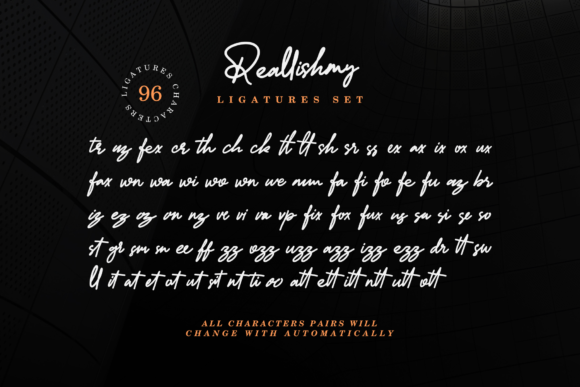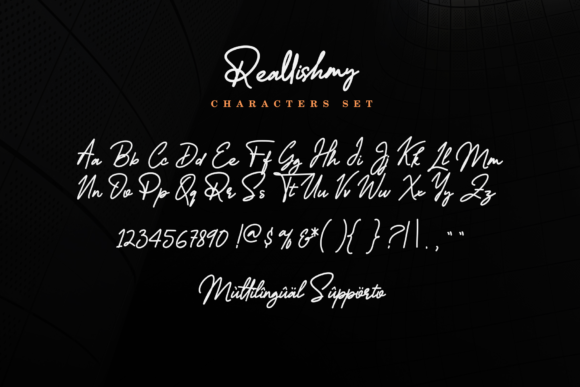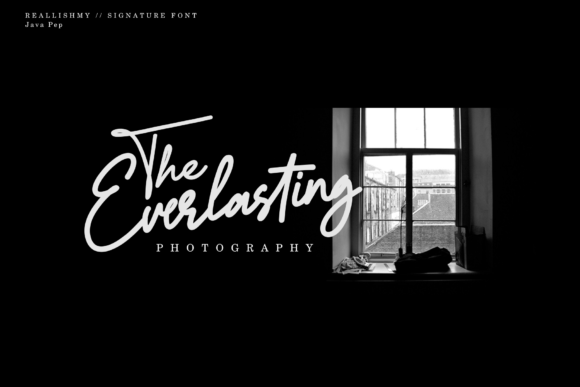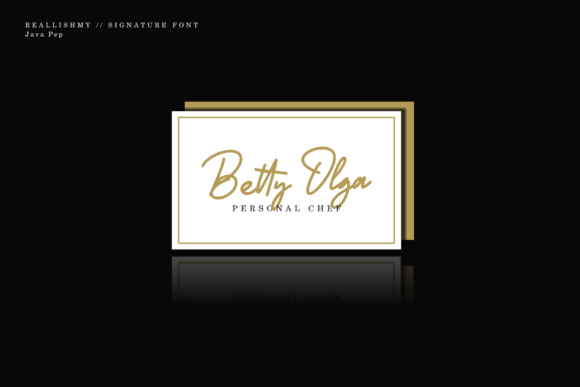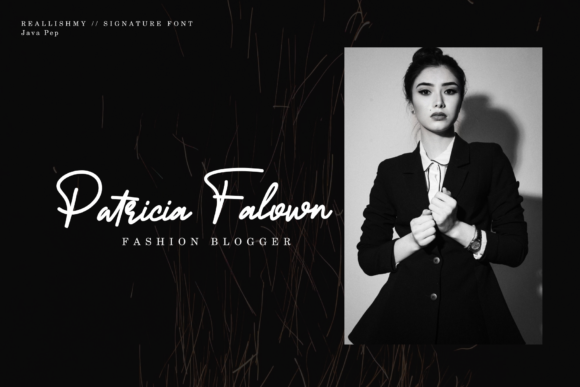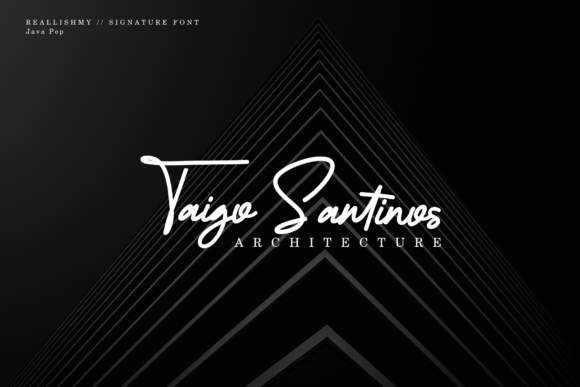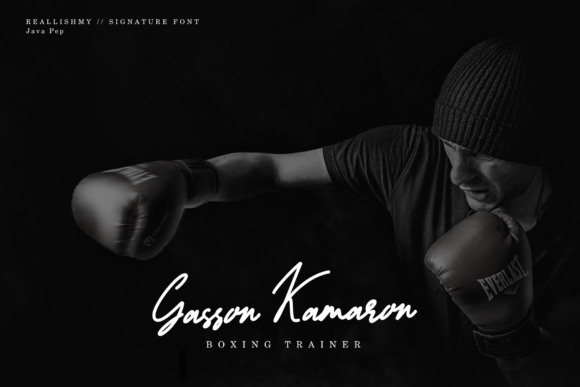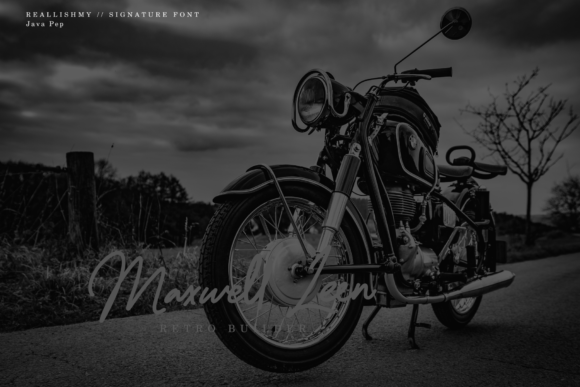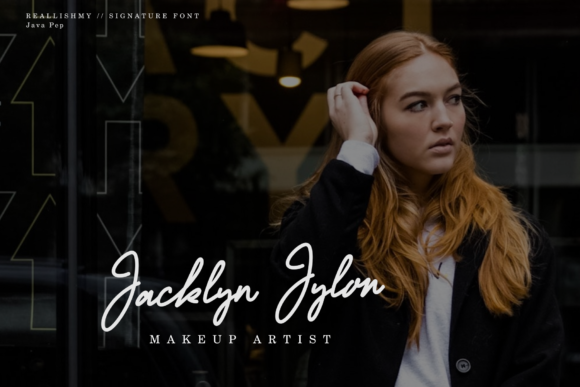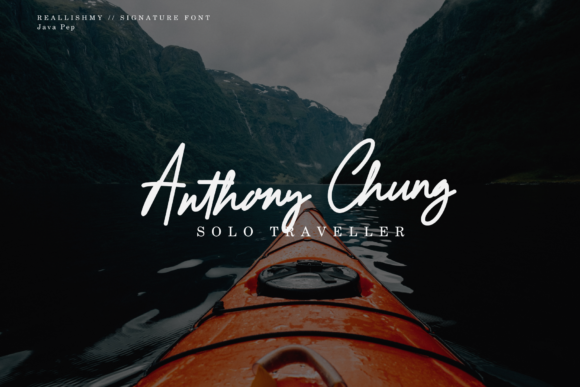
Reallishmy Font
About Reallishmy Font
The Reallishmy is an amazing signature font. It has a classy style which is perfect for adding a luxurious look to your designs.
It’s great readability makes it perfect for titles, headlines, logos, posters, branding, and much more!